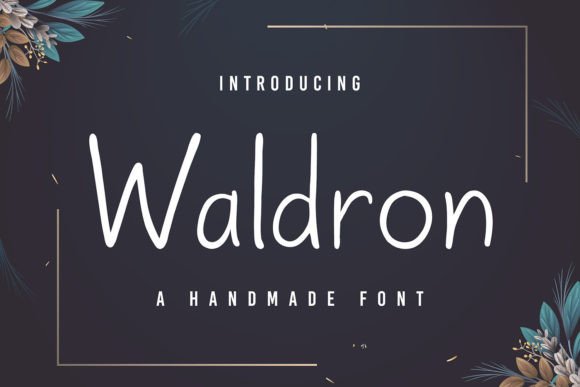
Unleash the Beauty of Waldorf: Modern Handmade Font for Your Designs
In a world obsessed with perfection, there lies a font that celebrates the charm of imperfection - Waldorf. Created by Creative Tacos, this modern and clean script font is the epitome of elegance and authenticity, perfectly suited for beauty brands that seek to stand out.
Waldorf is not just another font; it's an artistic expression that breathes life into your designs. Its unique, meticulously crafted imperfections and natural texture evoke an inviting warmth that captivates your audience. Waldorf's free-flowing curves and organic shapes bring an elegant touch to your logos, packaging, and branding, creating an intimate connection with your customers.
With Waldorf, you'll embrace the beauty of imperfection, transforming your designs from ordinary to extraordinary. This font allows you to tell a story, convey emotions, and create a lasting impression that lingers in the minds of your audience. Whether you're a beauty brand, a fashion designer, or simply a creative soul seeking to add a touch of authenticity to your projects, Waldorf is the perfect font for you.